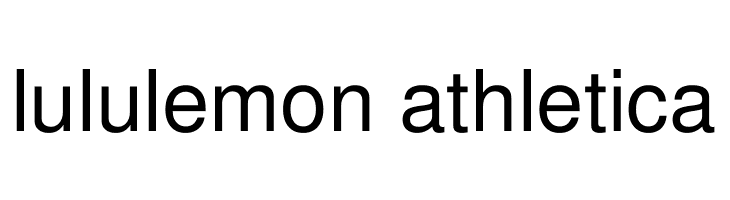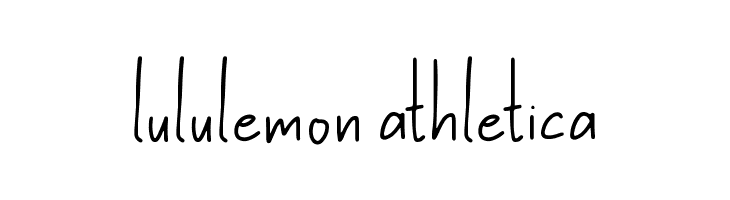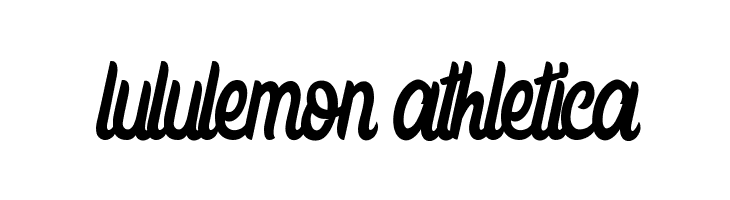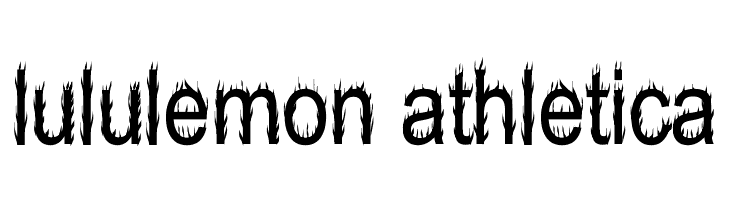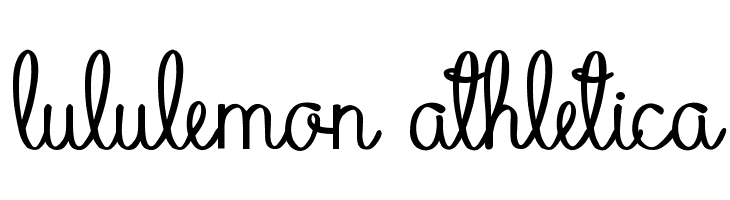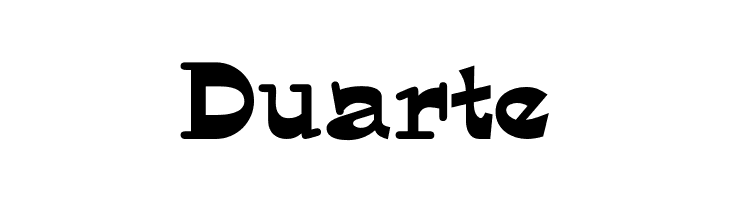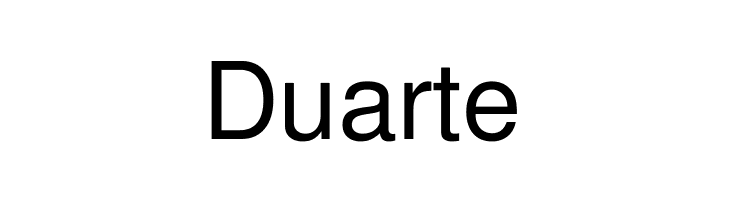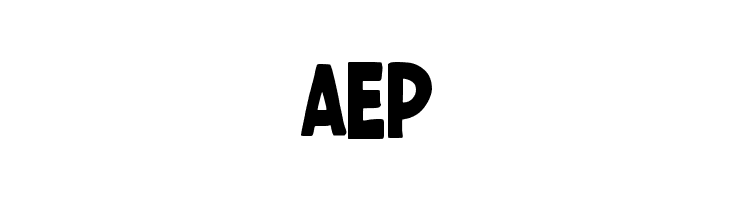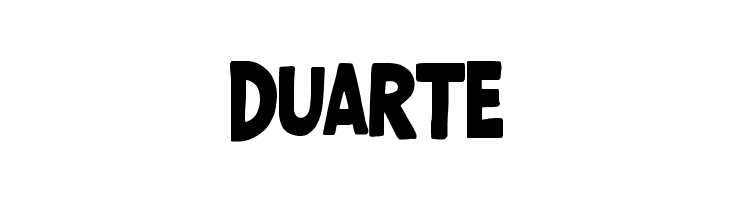
A bold, expressive script font with interconnected characters and a modern flair.
A playful, handwritten font with tall, narrow letters and a casual style.
A modern, clean sans-serif font with uniform strokes and excellent readability.
A playful and quirky serif font with exaggerated serifs and unique character shapes.
( Jaime Rangel Castro )
A playful, handwritten script font with decorative elements and moderate stroke contrast.
A playful, bold, hand-drawn style font with rounded, thick letters.
A bold, textured font with a speckled pattern and strong presence.